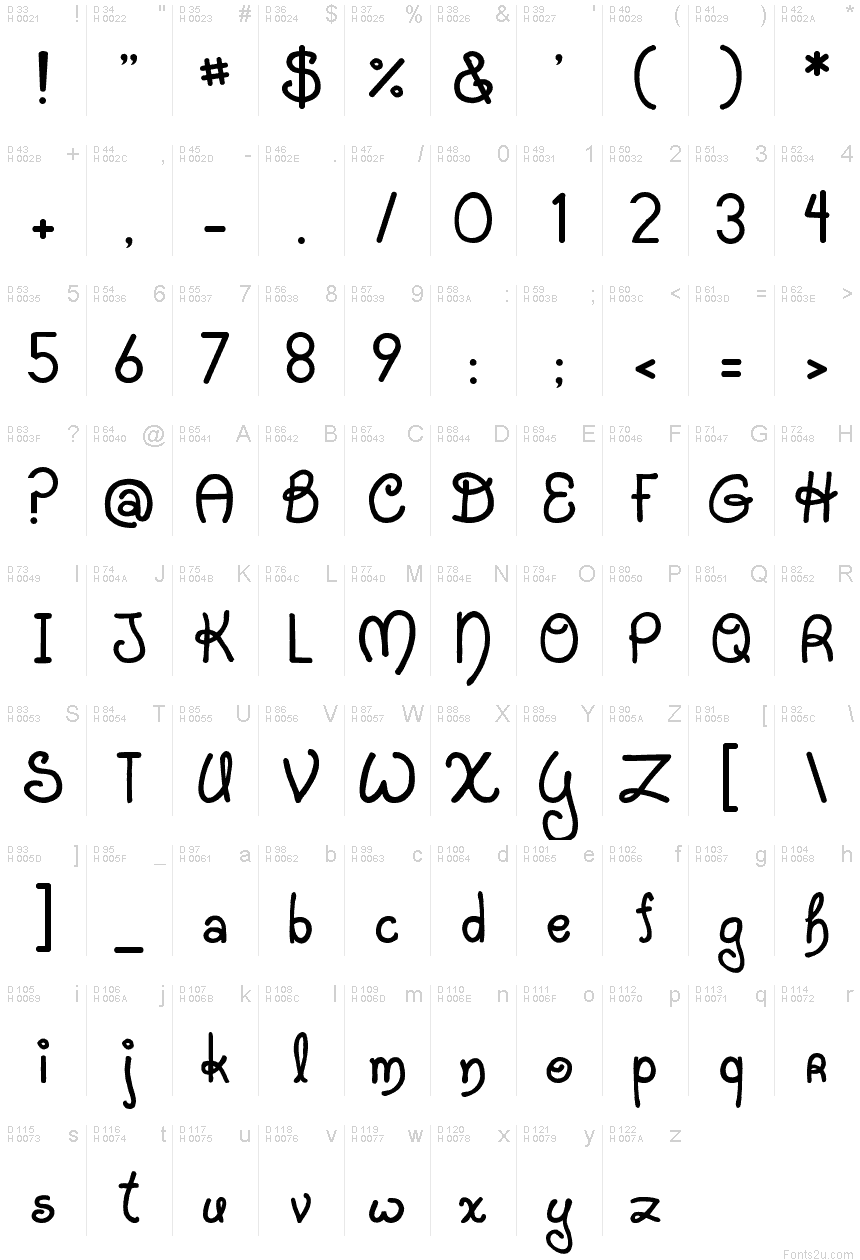
JI Starfish
JI Starfish font by Jeri Ingalls is a free handwritten font that feels like it was drawn with a thick, inky marker on construction paper. Its chunky, rounded strokes and slightly wobbly rhythm give it a warm, kid-friendly energy-playful without becoming messy. Letters feel soft and cushy, like they could bounce right off the page, which makes them instantly approachable and easy to read at a glance.
Using JI Starfish, you can bring a cheerful, hand-made touch to classroom posters, birthday invitations, children’s book covers, craft packaging, YouTube thumbnails, bulletins, and scrapbooking titles. This free font shines when used large, where its loopy curves really show. Pair it with a clean geometric sans serif for body text to keep layouts readable while letting JI Starfish handle the fun, attention-grabbing moments.